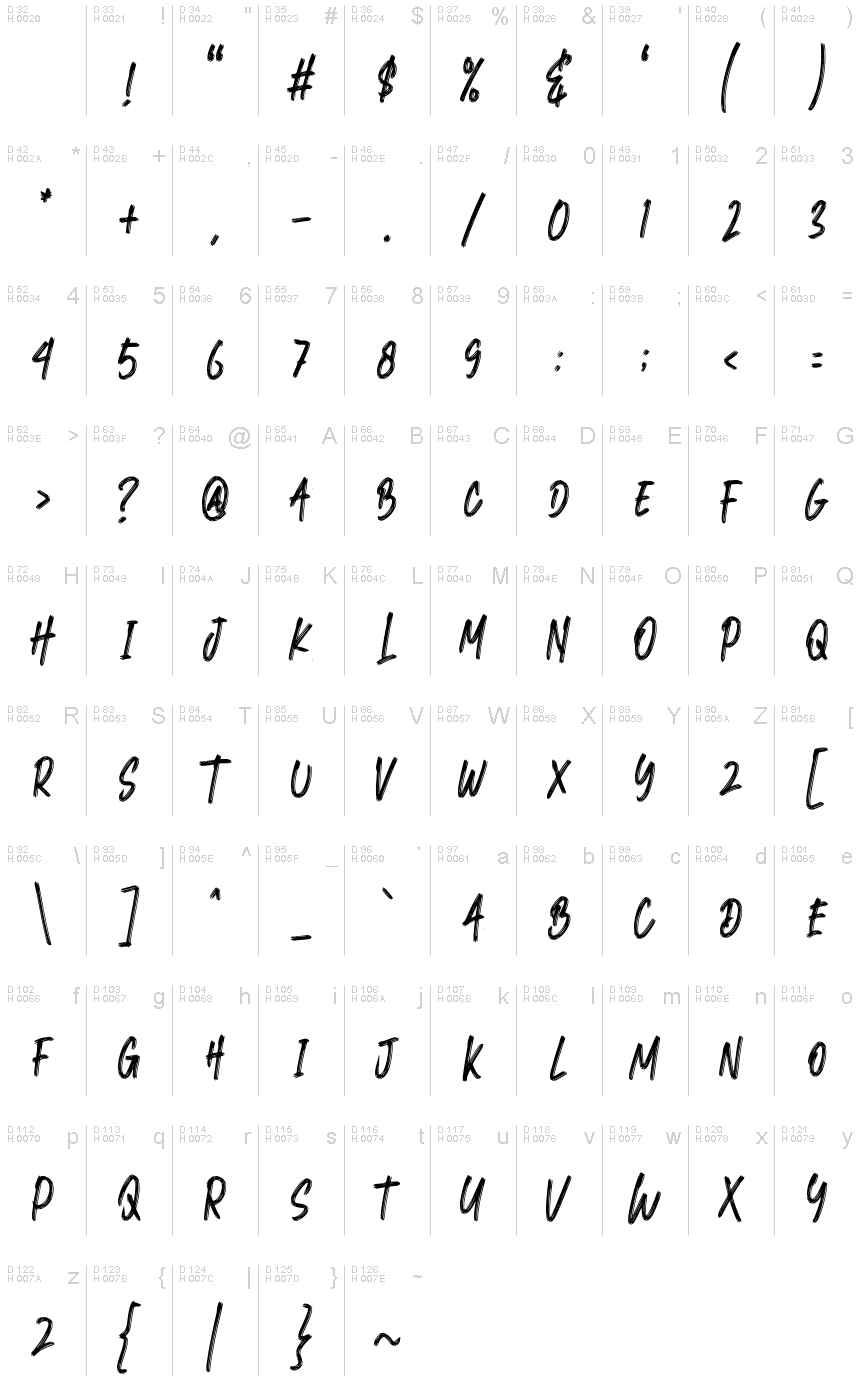
Nothen Free Display Regular
Nothen, a captivating brush font designed by Typetemp Studio, exudes a striking sense of movement and energy. This condensed typeface boasts dynamic, expressive strokes that convey a raw, handcrafted aesthetic, evoking a powerful and unconventional charm. Nothen's distinctive character shapes and fluid lines captivate the eye, making it a versatile choice for a wide range of design applications.
Nothen's versatility shines through its ability to adapt to diverse design contexts. From bold headings and attention-grabbing logos to impactful editorial layouts and eye-catching packaging, this font's unique personality lends itself seamlessly to projects that demand a touch of rugged sophistication. With its bold presence and expressive flair, Nothen is an excellent selection for brands seeking to establish a strong, memorable visual identity.